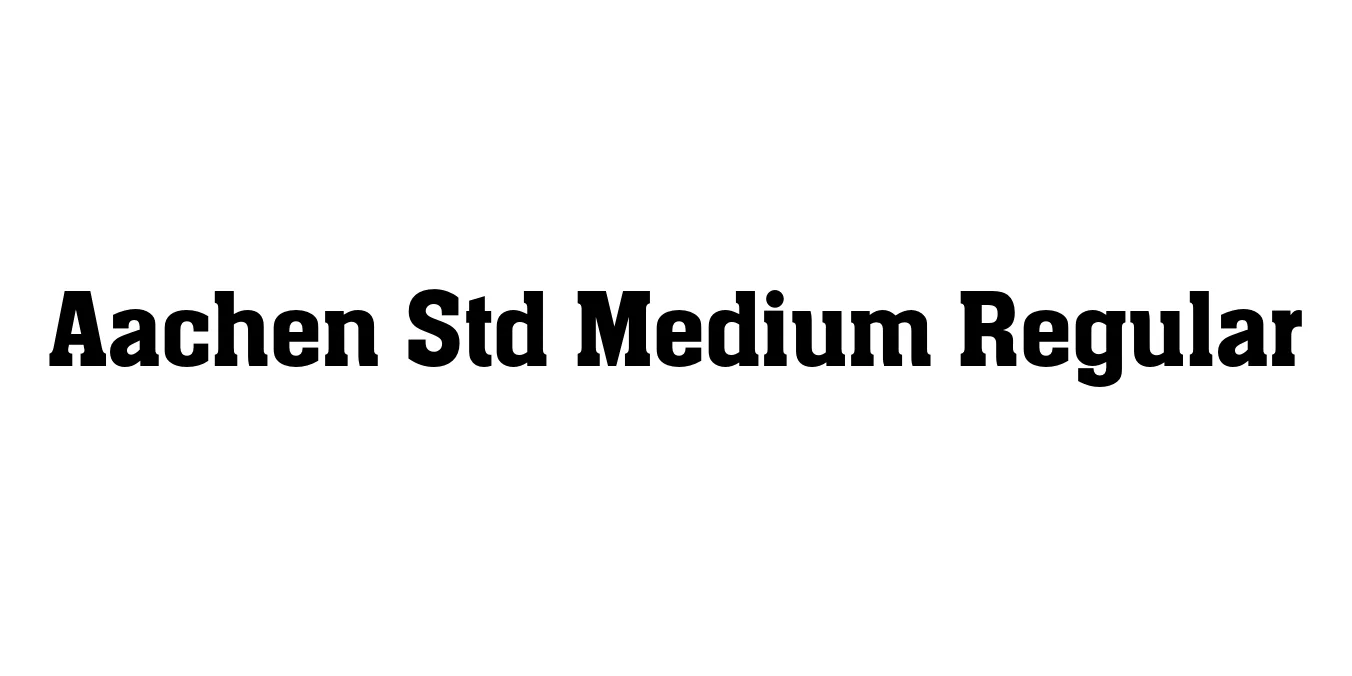
Aachen Std Medium Regular
Designed by Colin Brignall and Alan Meeks
| Category | Slab Serif |
| Designer | Colin Brignall and Alan Meeks |
Aachen Std Medium Regular is a powerhouse of typography, originally designed by Colin Brignall in 1969 for the Letraset library. Later expanded by Alan Meeks, this typeface is the epitome of the heavy slab serif style. Its robust, geometric construction and short ascenders and descenders give it a very compact and impactful appearance, making it one of the most recognizable display fonts in the world of graphic design.
Known for its bold presence and exceptional legibility at large sizes, Aachen has become a staple for headlines and branding. Its thick, blocky serifs and uniform stroke weights convey a sense of strength, stability, and industrial character. Whether used in sports branding, editorial design, or vintage-style posters, Aachen Std Medium Regular remains a versatile choice for designers looking to make a loud and clear statement.
Aachen Std Medium Regular Best Uses
Perfect for jerseys, team logos, and scoreboard displays.
Ideal for bold, attention-grabbing titles in magazines and newspapers.
Works well for rugged, industrial-style brand identities.
Excellent for high-impact visual messaging and marketing materials.